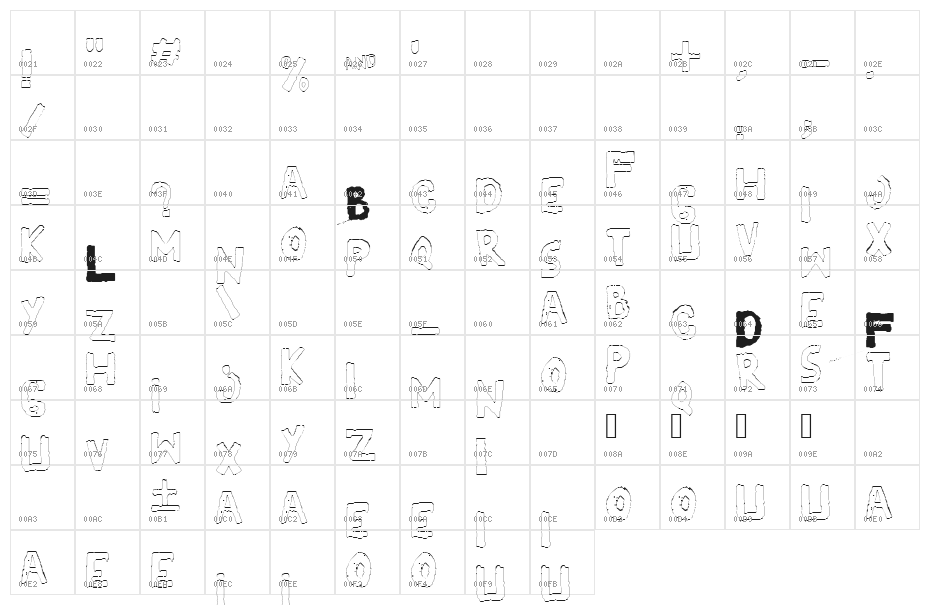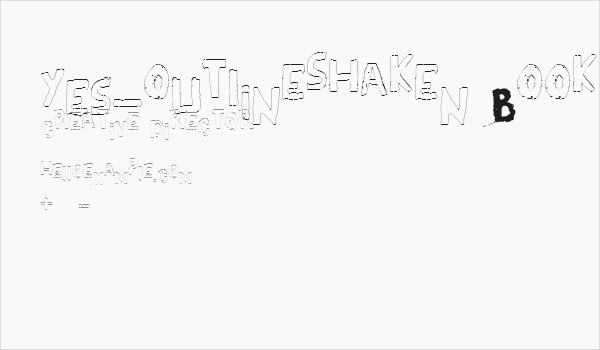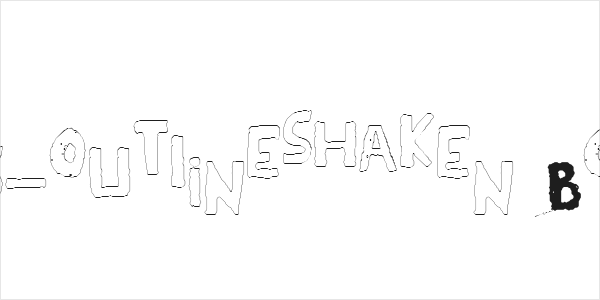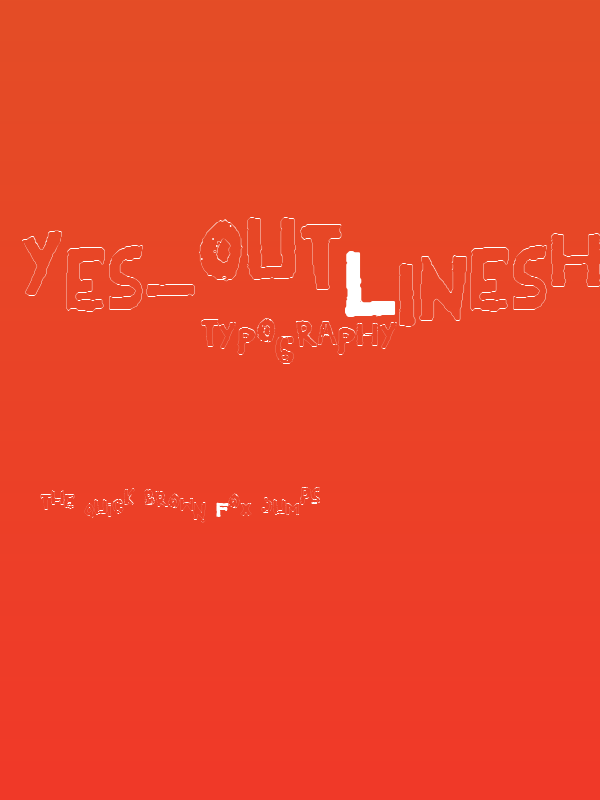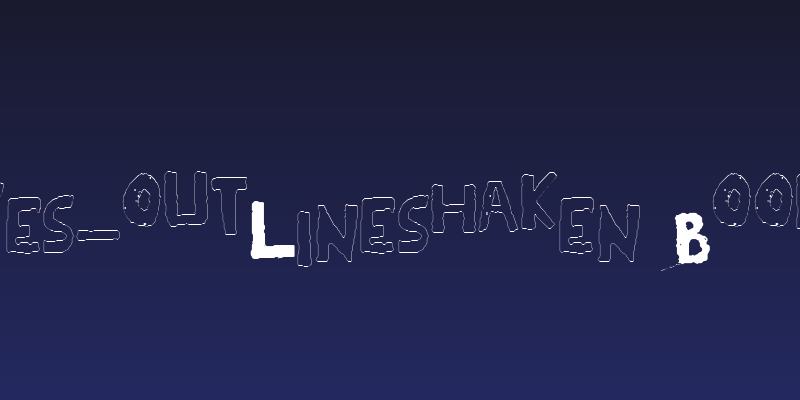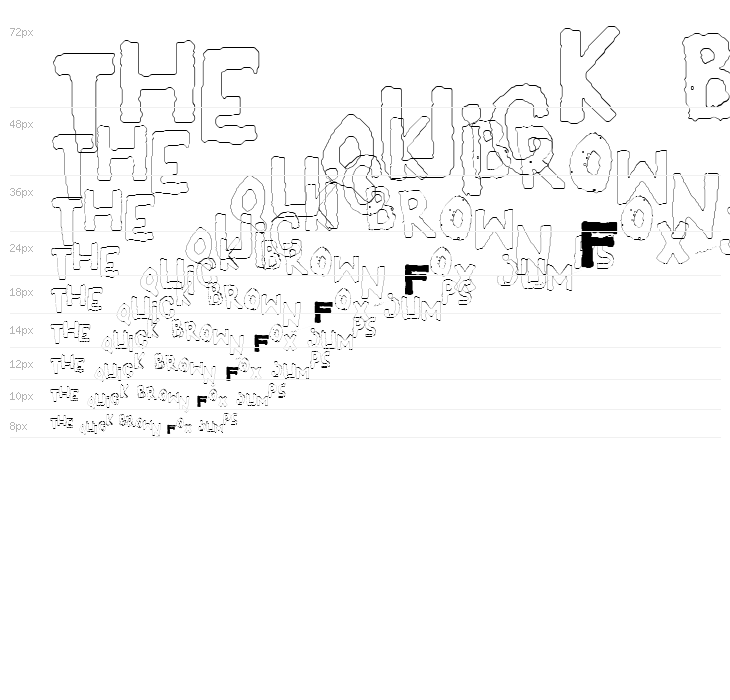
YES_outlineshaken Book Font
YES_outlineshaken Book Description
This font features a playful and quirky design with an outline style that gives it a hand-drawn appearance. The characters are bold and have a slightly uneven, wobbly quality, adding to the casual and informal feel. The uppercase and lowercase letters maintain a consistent style, with rounded edges and a uniform stroke width. The numbers and special characters follow the same design principles, ensuring cohesion across all glyphs. This font's unique style makes it stand out, perfect for projects that require a fun and approachable look.
| Proposed Projects | Ideal for children's books, playful branding, casual invitations, and creative posters. |